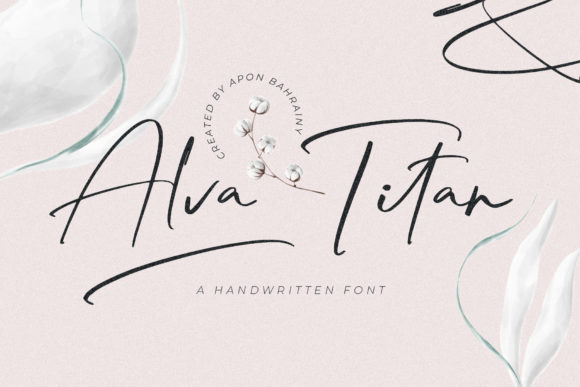
The Alva Titan Font: A Fresh Handwritten Style for Your Designs
Have you ever been in the middle of a design project, and suddenly, you’re stuck on finding the perfect font? I recall a recent experience where I was working on a custom logo for a client, and I just couldn’t find a font that captured the right feel. That’s when I stumbled upon the Alva Titan font, and it completely transformed my design. In this article, I’ll share my journey with this beautiful font, its features, and how you can make the most of it in your designs.
First Impressions: What I Love About Alva Titan
The Alva Titan font is a fresh handwritten font with ending swashes and an extra underline, making it incredibly versatile for various design needs. Here are some of the things I love about it:
- ✨ Unique Style: The handwritten style with swashes gives it a personal and elegant touch.
- ✅ Versatility: It’s suitable for daily quotes, custom logos, titles, posters, headlines, social media posts, invitations, packaging, and more.
- 💫 Easy to Read: Despite its decorative elements, the font remains clear and readable, even at smaller sizes.
Honest Review: A Few Quirks
No font is perfect, and Alva Titan has a few quirks to consider:
- 🤔 Limited Use in Body Text: While it’s great for titles and headlines, it might not be the best choice for long body text due to its decorative nature.
- ⚠️ Swashes and Underlines: Some users might find the swashes and underlines a bit too prominent or tricky to work with, especially if you’re new to using OpenType features.
Exploring Alternatives: Similar Fonts to Alva Titan
If you’re looking for more options or want to experiment with different styles, here are a few fonts similar to Alva Titan:
- Kaitlynn: A beautiful, elegant handwritten font with a softer feel, great for feminine designs.
- Sofia: A stylish and modern script font perfect for luxury brands and high-end designs.
- Adorn: A decorative font with intricate details, ideal for wedding invitations and formal events.
- Lola: A fun and playful handwritten font suitable for children’s designs, blogs, and social media.
The Story Behind Alva Titan
Alva Titan was created with the intention of bringing a fresh, personal touch to designs. The designer aimed to craft a font that was not only beautiful but also versatile enough to be used across various platforms and projects. The result is a font that feels both elegant and approachable.
Here are some questions you might have about using Alva Titan:
| Q: Is Alva Titan suitable for body text? | A: While it’s primarily designed for titles and headlines, it can be used for short paragraphs. However, for long body text, a more traditional font might be more readable. |
| Q: Does Alva Titan support OpenType features? | A: Yes, Alva Titan supports OpenType features, including swashes and stylistic alternates, which can be accessed in compatible software like Adobe Photoshop and Illustrator. |
| Q: Is Alva Titan easy to read? | A: Despite its decorative elements, Alva Titan is designed to be clear and readable, making it suitable for a variety of design projects. |
Alva Titan is a versatile and beautiful font that can elevate your designs. Whether you’re a professional designer or a creative hobbyist, this font offers a fresh and elegant style that’s sure to impress. Experiment with its features, and don’t be afraid to mix and match with other fonts to create something truly unique.